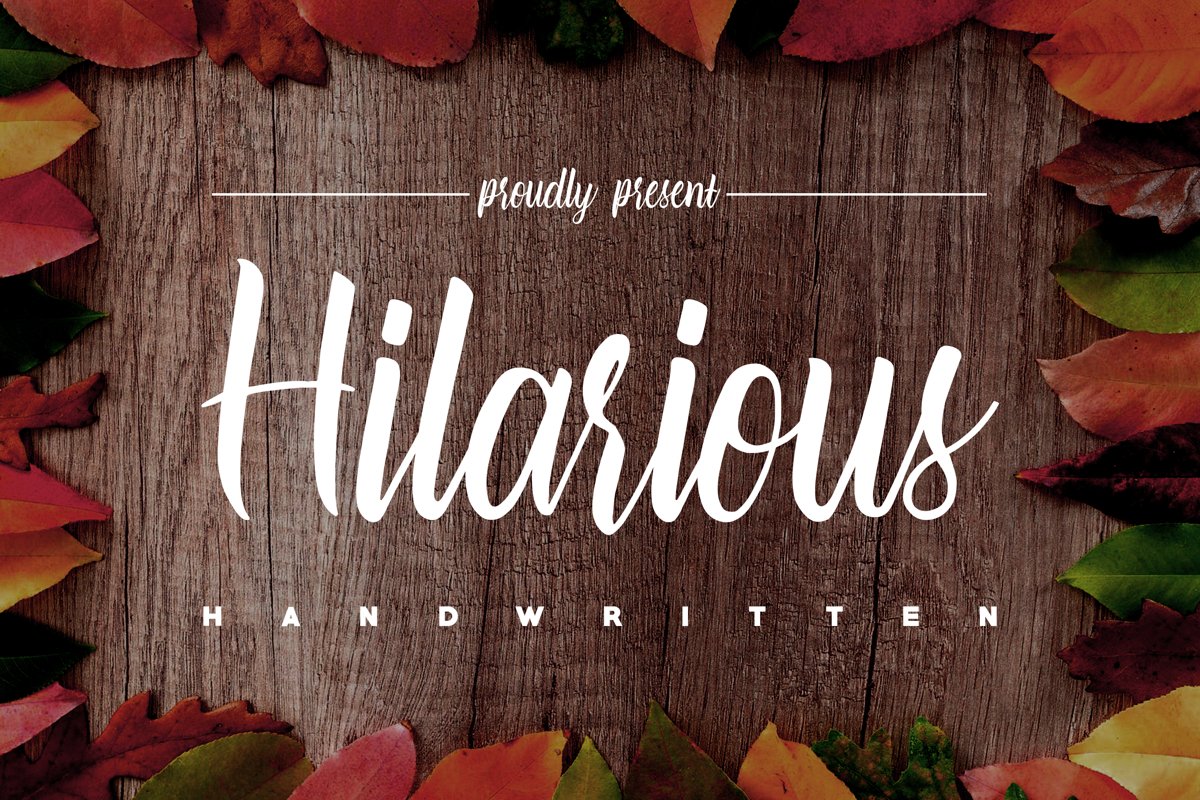
Hilarious
The Hilarious is a Handwritten font with a fresh and modern style. It’s suitable for nameplates, banner, logos, branding, greeting cards, posters, book covers, and much more